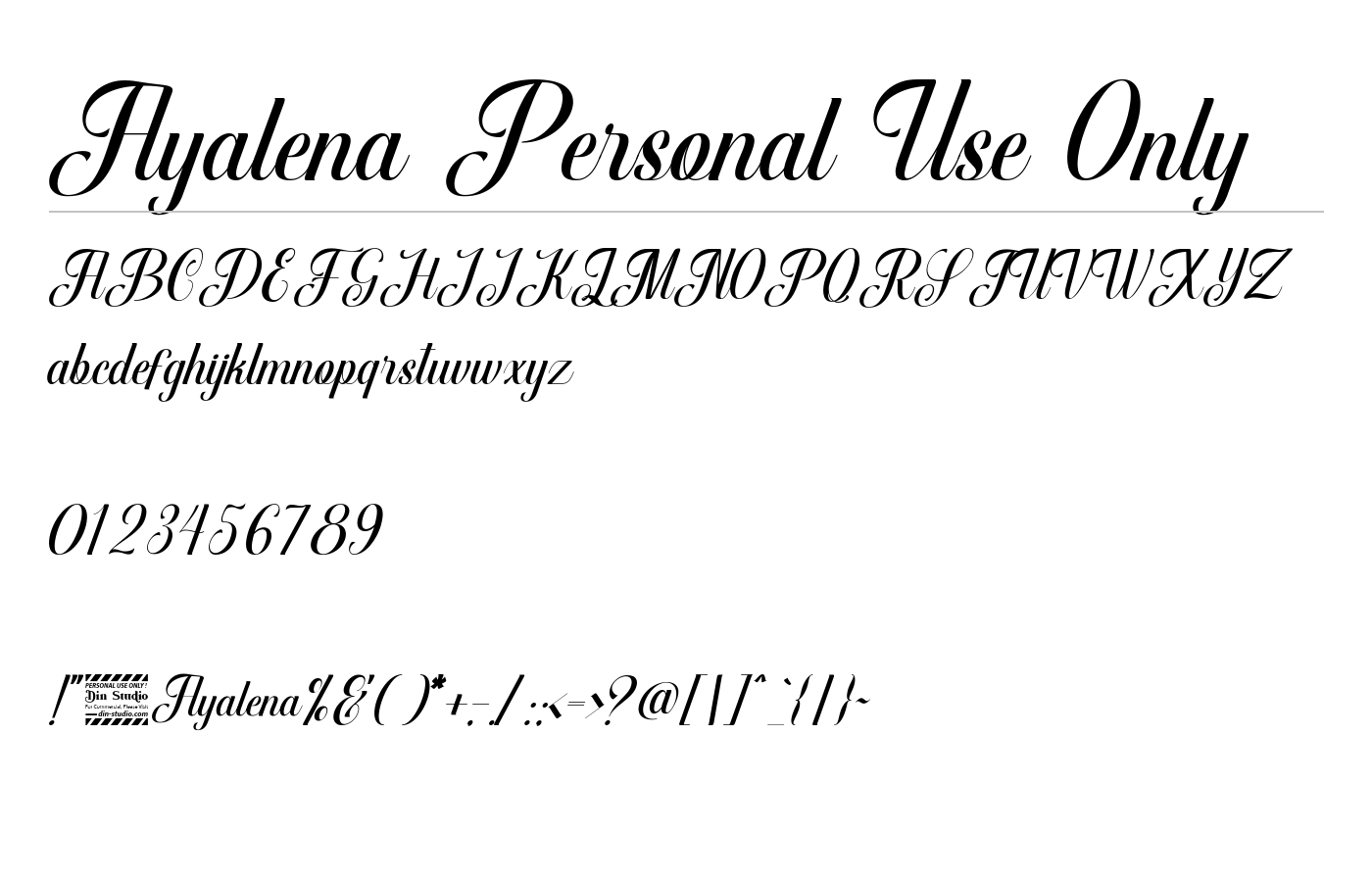
Ayalena Personal Use Only is an elegant, cursive script font with a refined, high-contrast stroke that lends it a sophisticated and graceful appearance. Its slender, flowing letterforms and delicate serifs make it perfect for luxury branding, invitations, and stylish editorial work, where a touch of classic charm and femininity is desired. This font works best in headlines or decorative text, offering a sense of refinement and poised beauty.
Ayalena Personal Use Only Font
About Ayalena Personal Use Only Font
| Font family | Ayalena Personal Use Only Font |